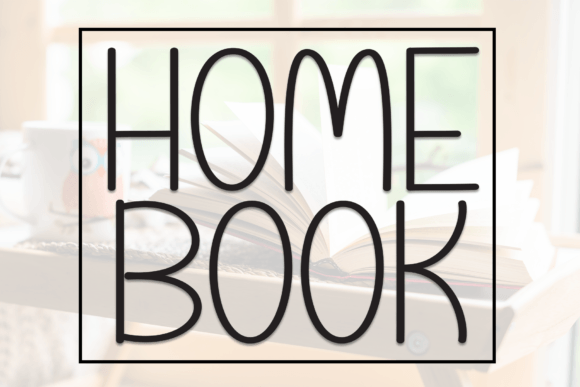
Embrace the Charm of Home Book Font: A Handwritten Masterpiece for Your Creative Endeavors
In the realm of digital artistry, where creativity knows no bounds, fonts emerge as the unsung heroes, shaping the visual symphony of your designs. Among this illustrious ensemble, Home Book Font stands tall, a script typeface born from the heart of William Jhody, a visionary font designer.
Home Book Font exudes a disarming sweetness, its characters dancing across the screen like notes of a heartfelt melody. Each letter, meticulously crafted with a human touch, carries an air of playfulness, adding a touch of delight to your creations.
Step into a world where words come alive, where invitations and cards transform into captivating works of art. Home Book Font's amiable nature makes it the perfect companion for expressing heartfelt sentiments, be it through wedding vows, heartfelt messages, or simply a casual note to a loved one.
Unleash your imagination and let Home Book Font guide you on a journey of creative exploration. Embrace the font's innate charm and watch as your designs blossom into captivating masterpieces.